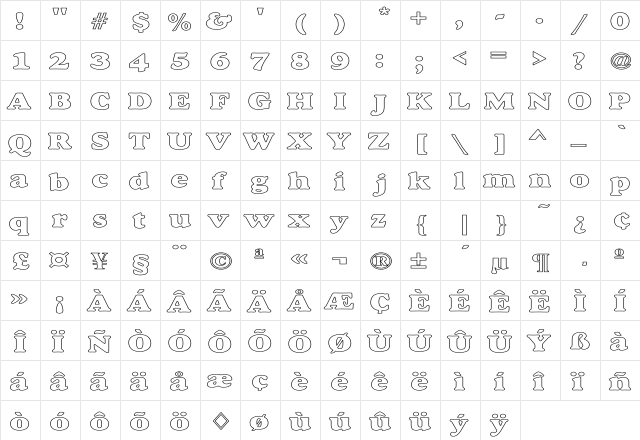
Dover Hvy Hollow Wide Regular Font Preview
Dover Hvy Hollow Wide Regular
Design Context for Dover Hvy Hollow Wide Typeface
Dover Hvy Hollow Wide offers clean, dependable letterforms without strong stylistic allegiance, making it a practical choice for designers who need flexibility.
Pro Tip: Use Dover Hvy Hollow Wide in both headline and body roles to test its range before committing to a single application.